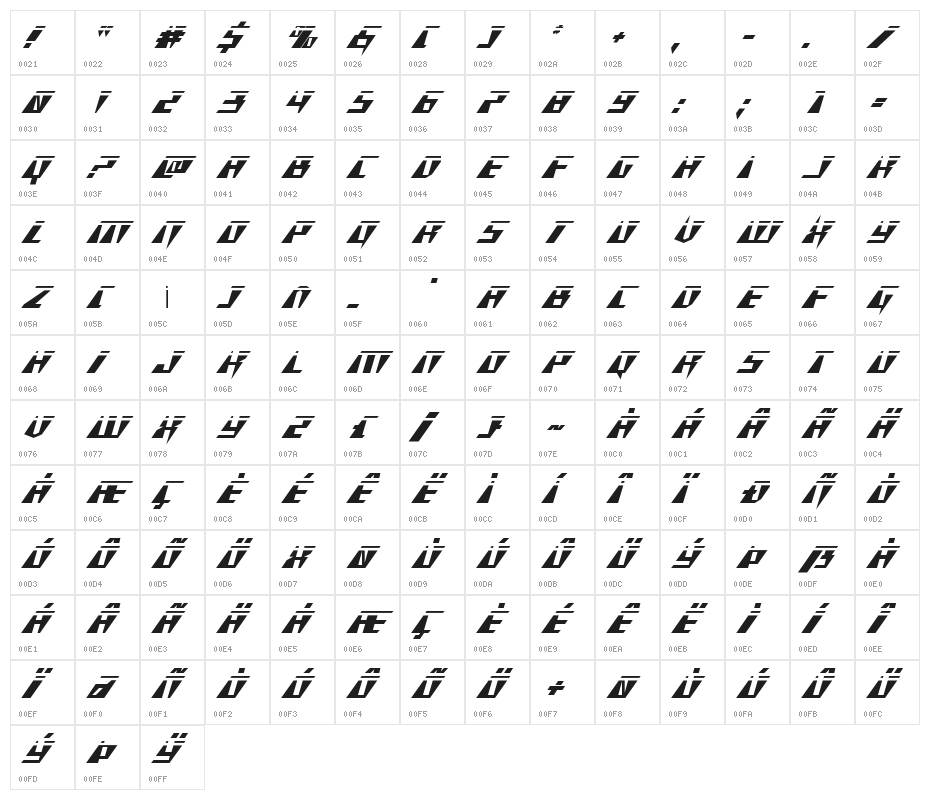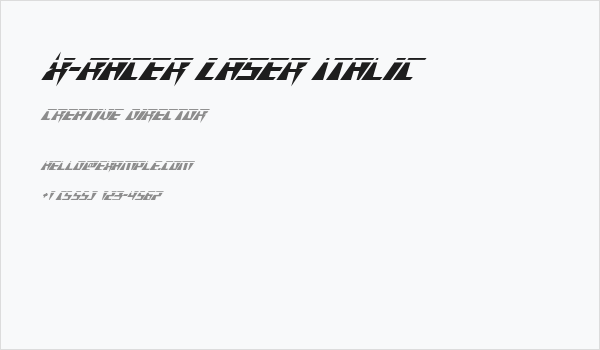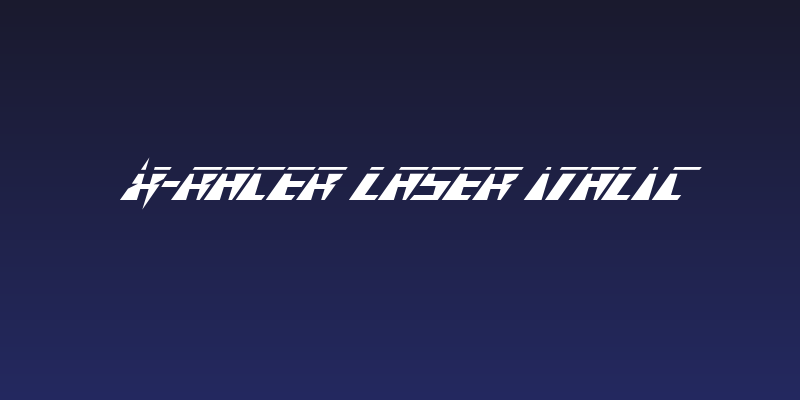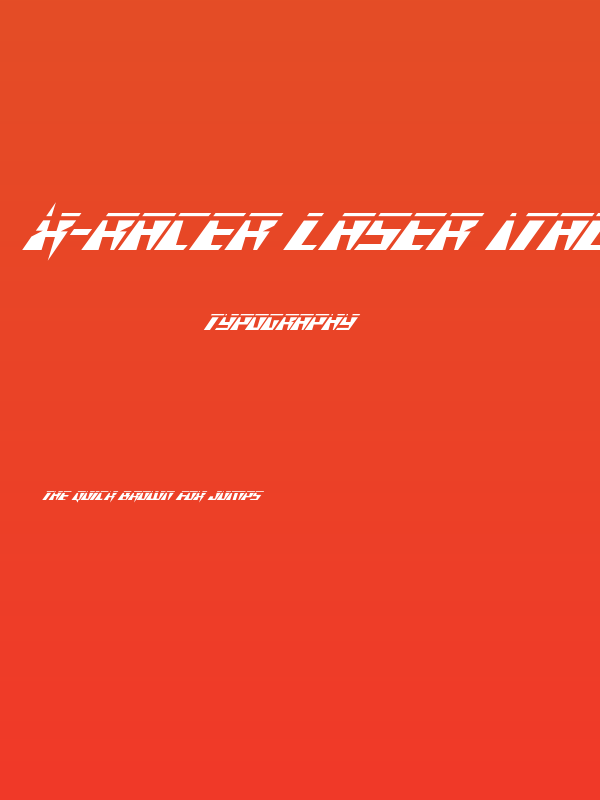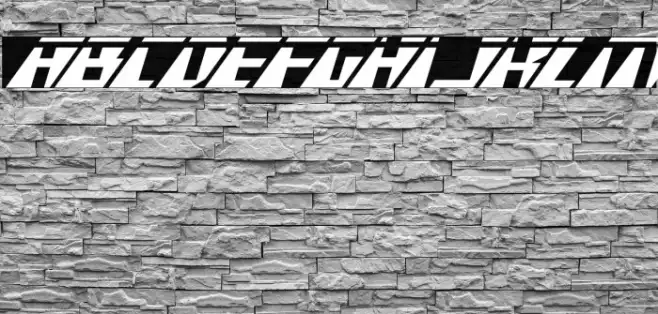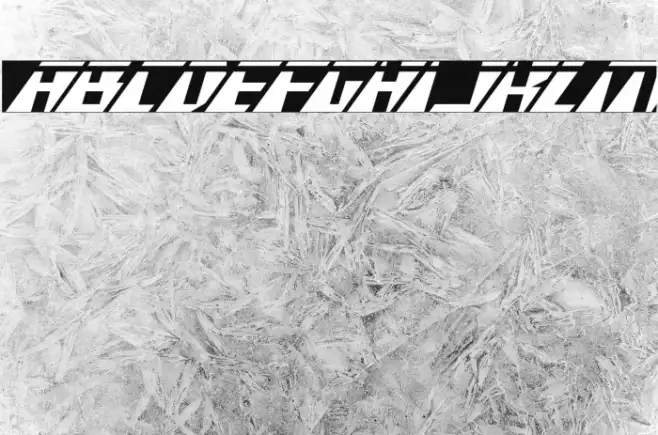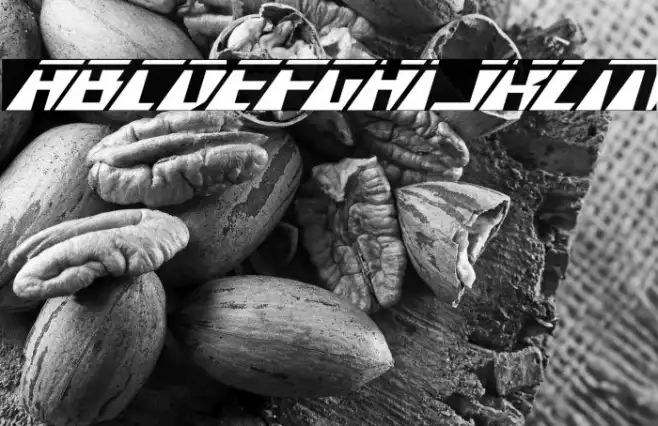
X-Racer Laser Italic Font
X-Racer Laser Italic Description
This font features a dynamic and futuristic design, characterized by sharp angles and a slanted, italicized style that suggests speed and movement. The bold, geometric shapes give it a strong presence, making it ideal for attention-grabbing headlines or branding that requires a modern and edgy look. The uppercase and lowercase letters maintain a consistent style, with each character exhibiting a unique angular cut that enhances its futuristic appeal. The numerals and special characters are designed to match the overall aesthetic, ensuring a cohesive look across all text elements.
| Proposed Projects | Ideal for use in automotive branding, sports team logos, video game titles, and sci-fi themed projects. |